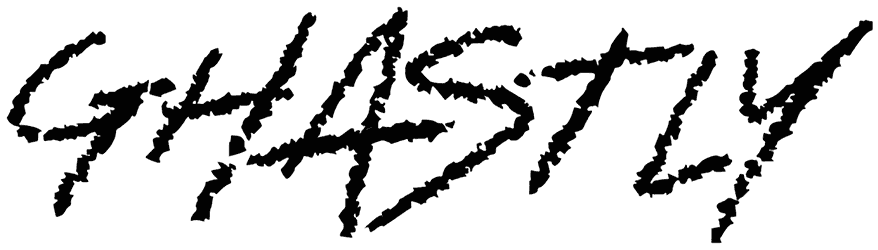
Grunge and mess are the elements of design that give Scratch a creepy and scary look. This horror font with its unique design would be perfect for Halloween product packaging, scary movie posters, zombie game flyers, and scary ride banners at amusement parks.
This chalkboard font comes with two sets of capitals while supporting a few small letters. Remember to check out Resource Boy daily so you don’t miss our updates.